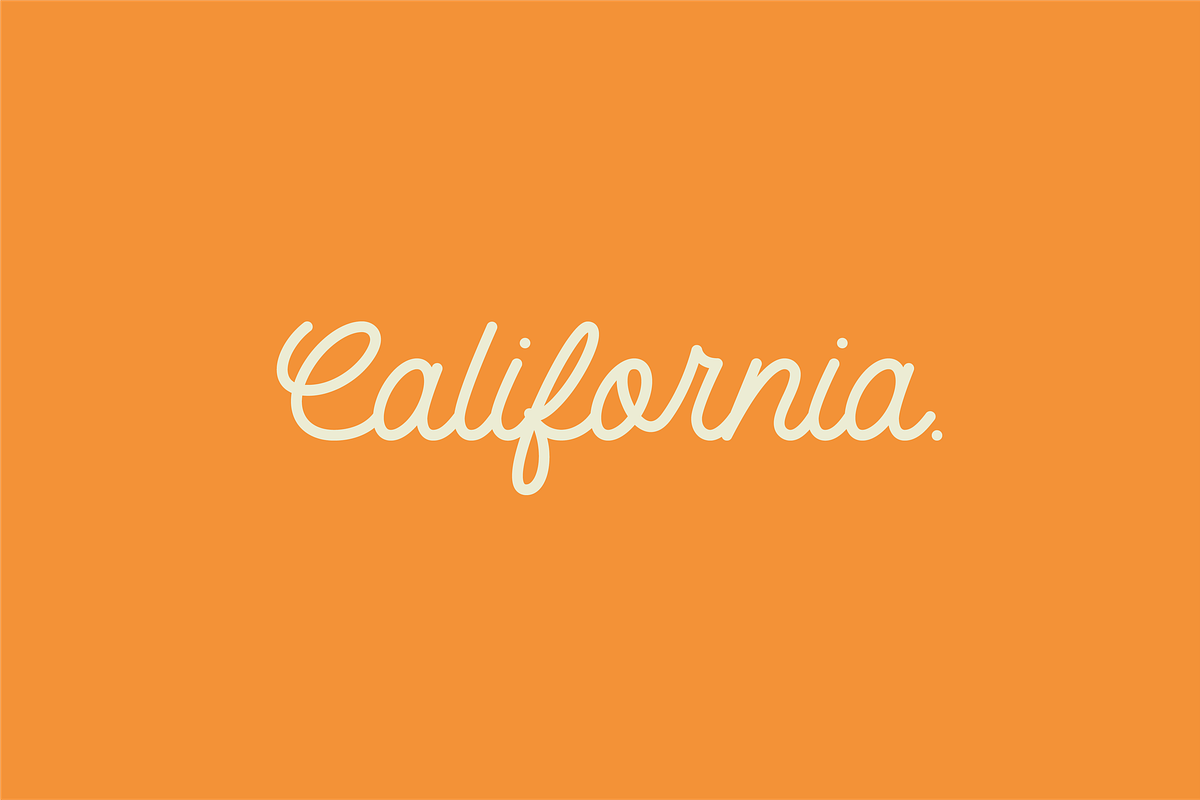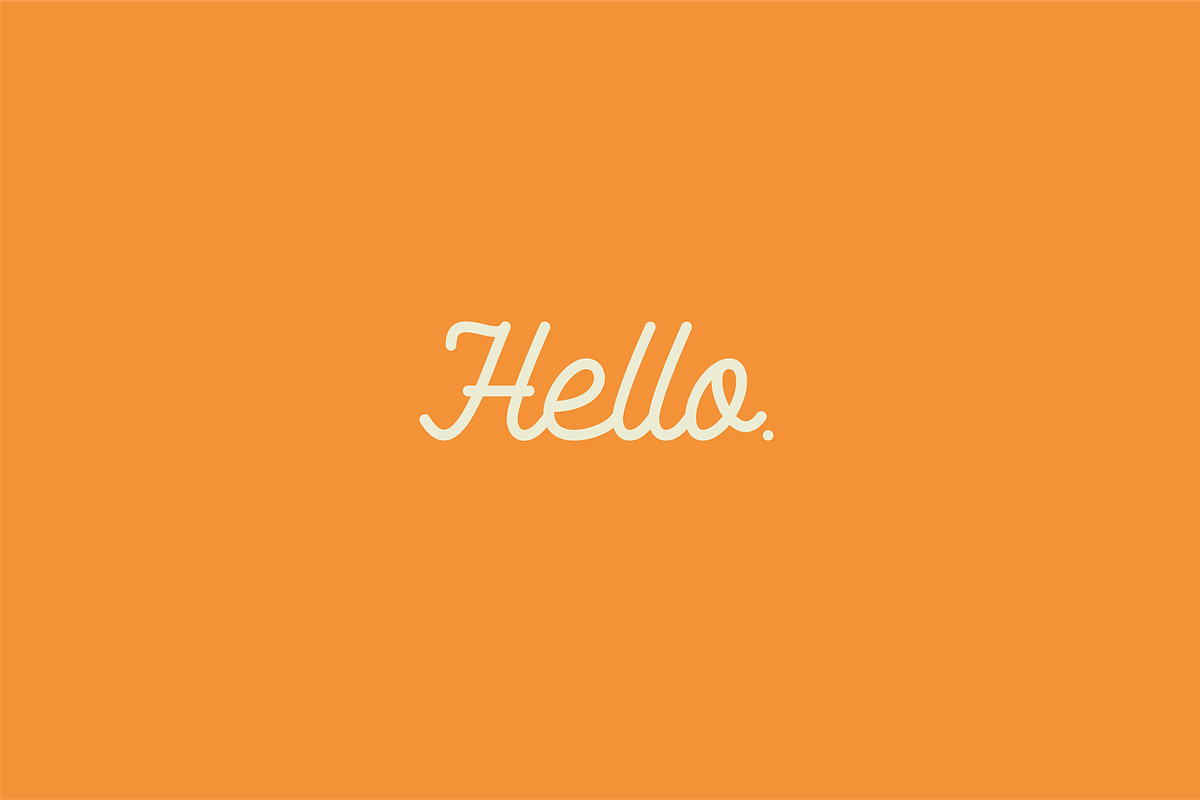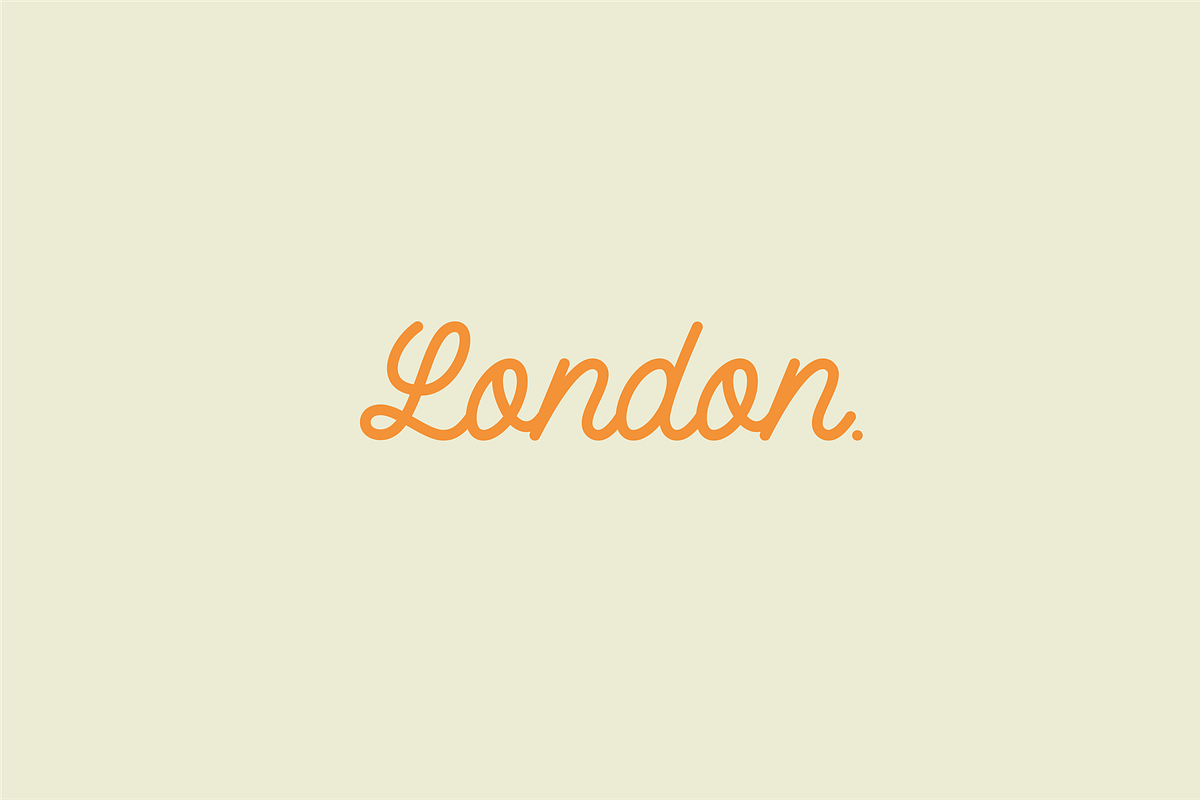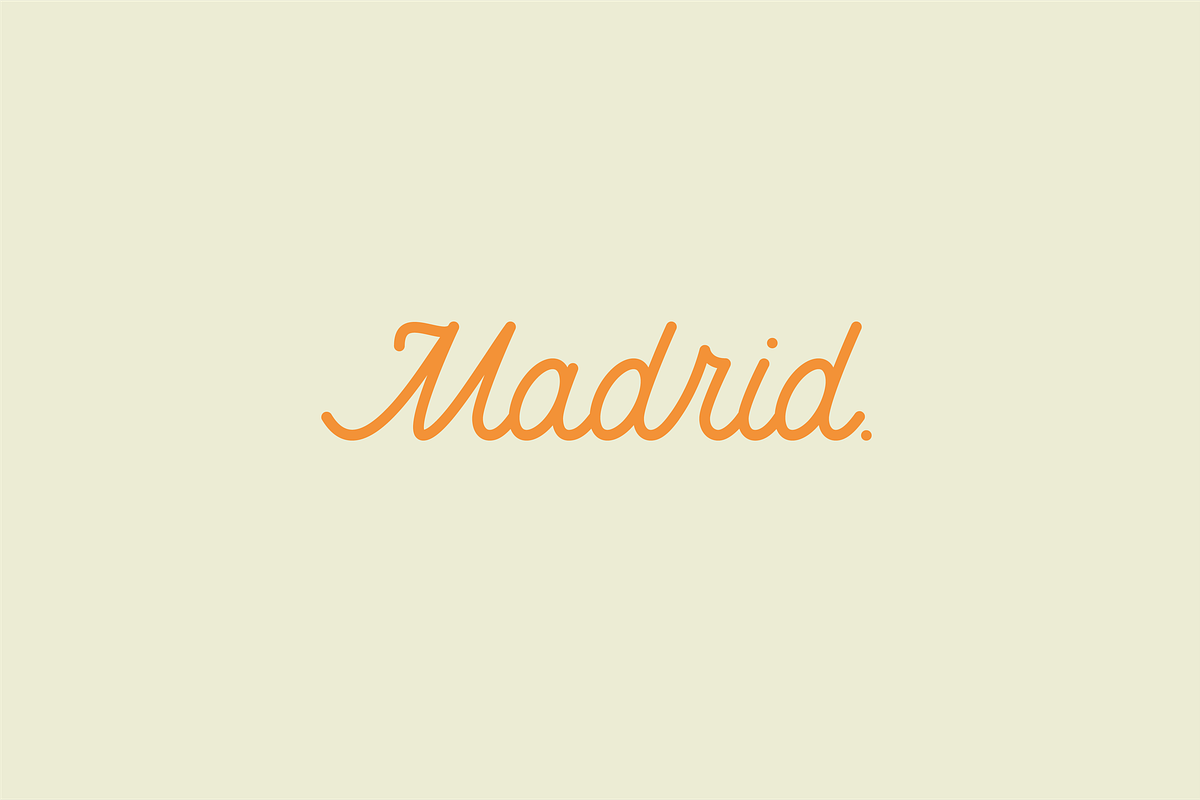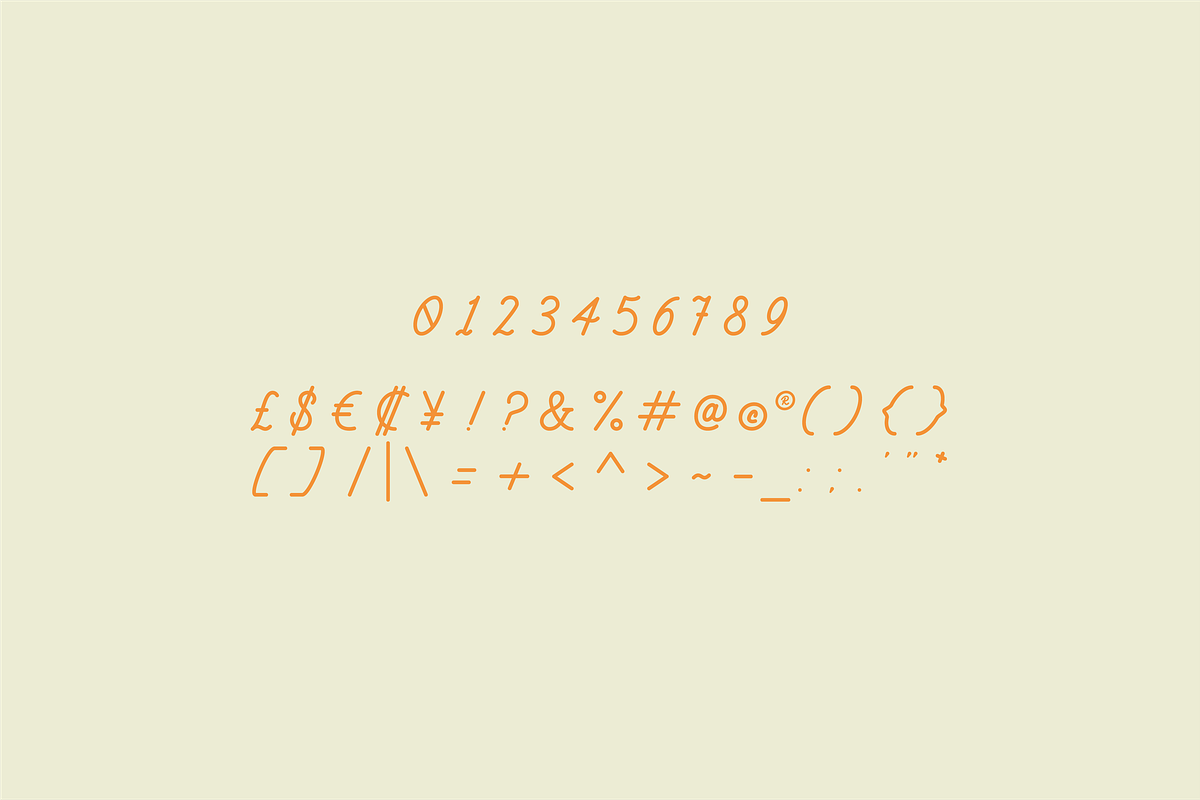
Monoline Script - Font
Monoline Script is a beautiful mono-line font, perfect for logo design, branding, clothing design, signage, posters, wedding invitations and so much more! My goal with this font was to create an easily legible script font which would work for a wide variety of purposes. This font retains my personality within the characters as they were initially based off my own handwriting and later tidied up to create a set of consistent characters. Having that handmade feel and personal touch certainly gives it a hint of authenticity; perfect for any of your upcoming projects. Don't miss out!
Uppercase & Lowercase Alphabet
Punctuation & Symbols